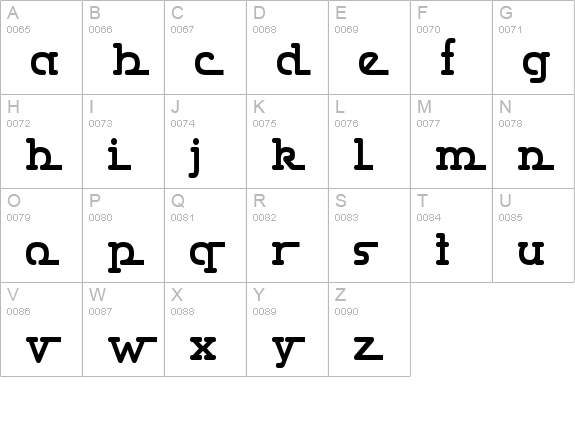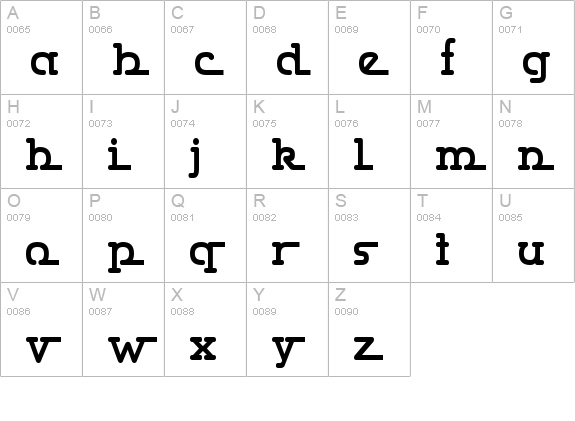
Gumbercules Font Details
Introducing Gumbercules font, a versatile and eye-catching typeface that is sure to make your designs stand out. With its unique blend of whimsical curves and bold strokes, Gumbercules is perfect for a wide range of creative projects, from branding to social media graphics. This font is not only visually appealing but also incredibly easy to read, making it suitable for both print and digital applications. Whether you are designing a poster, logo, or website, Gumbercules is sure to make a lasting impression. And the best part? Gumbercules is available for free download at FontsMarket.com. So why wait? Add this stunning font to your collection today and unleash your creativity like never before.